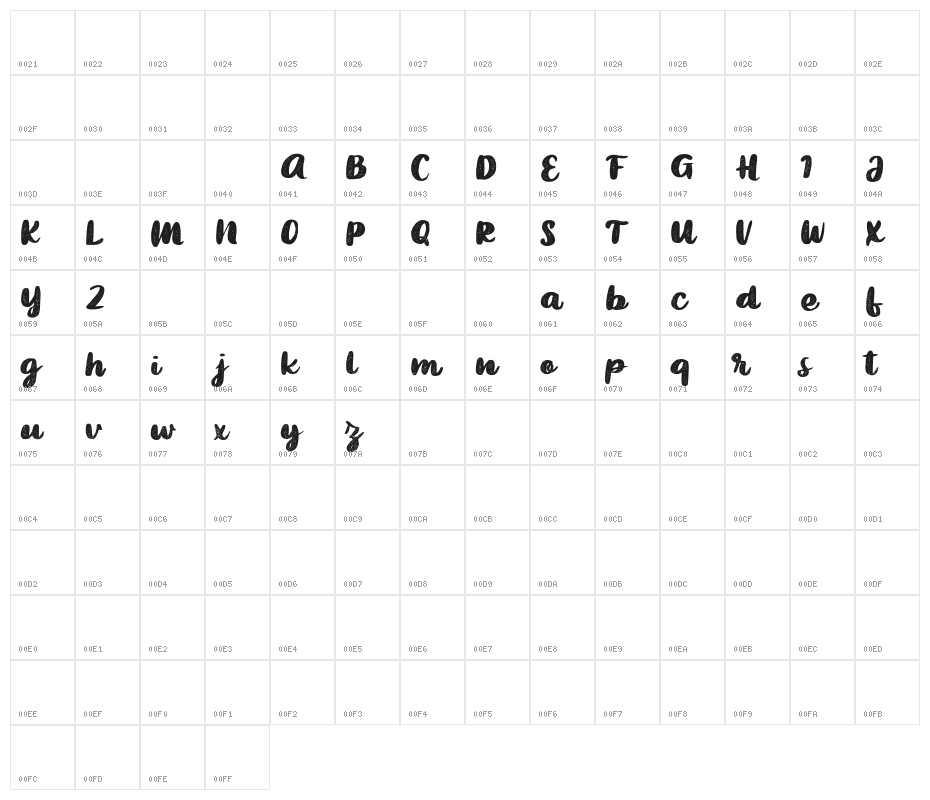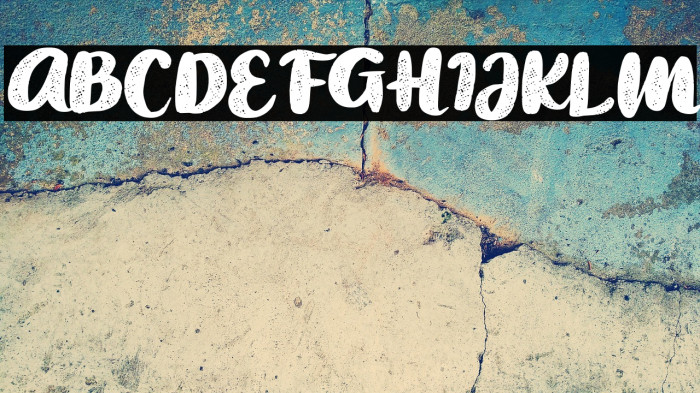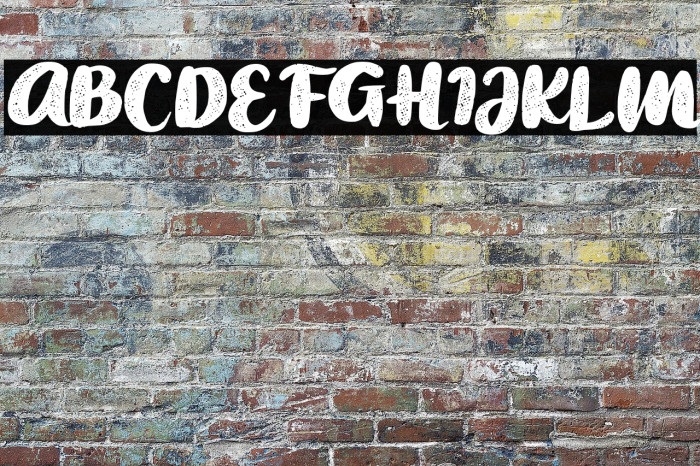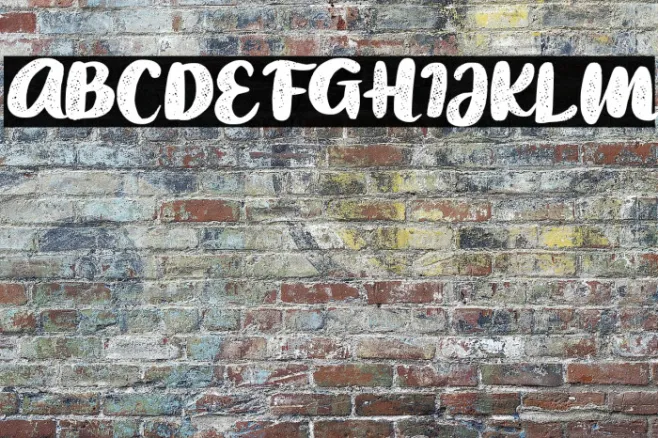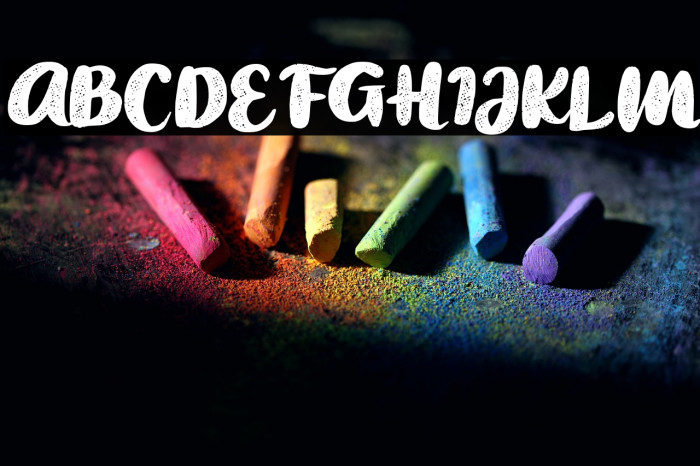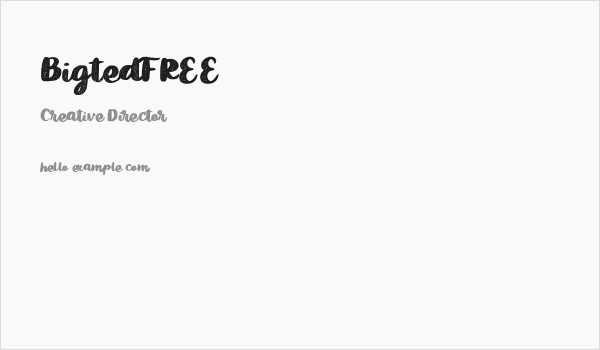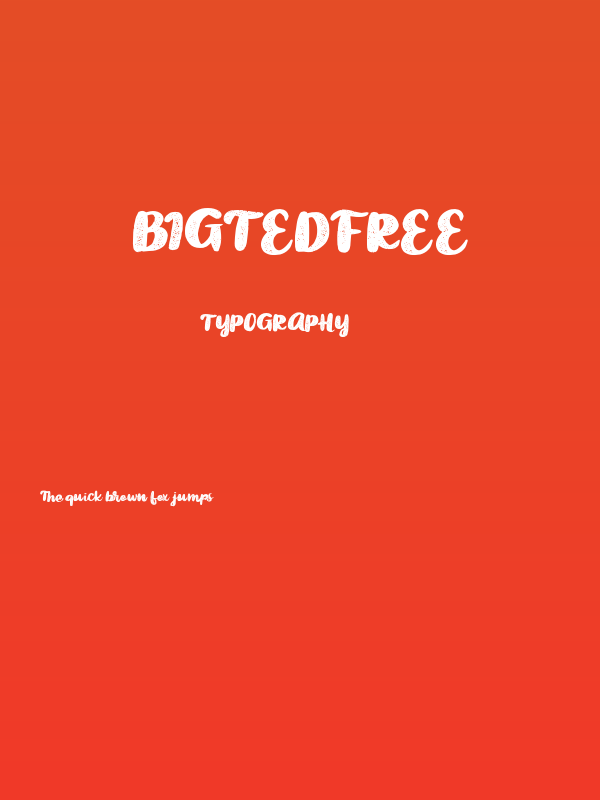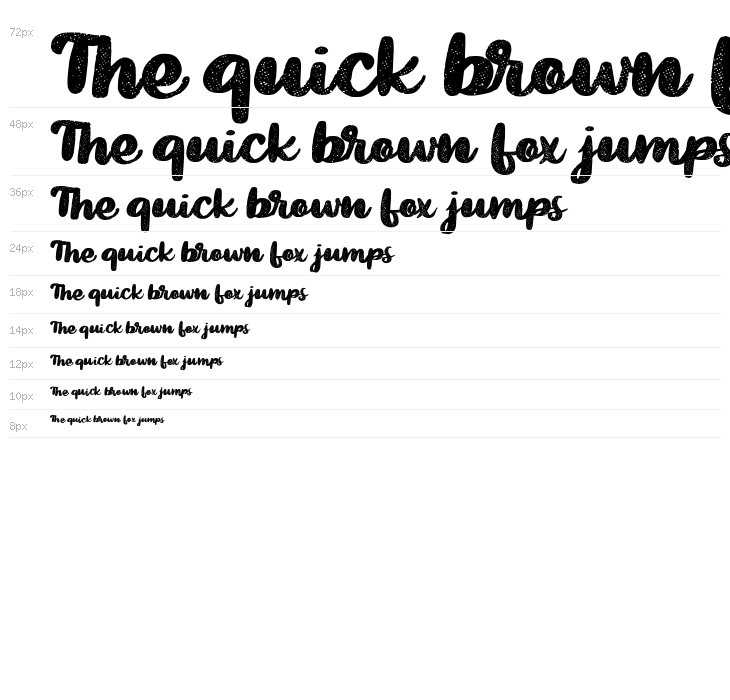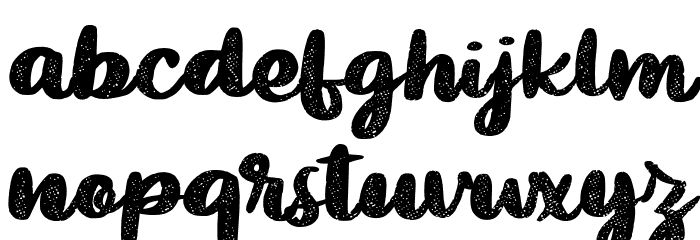
BigtedFREE Font
BigtedFREE Description
This font features a bold, playful script style with a textured appearance that gives it a handcrafted feel. The letters are connected, creating a flowing and dynamic look. The texture adds a unique character, making it stand out in any design. The uppercase and lowercase letters maintain a consistent style, with rounded edges and a slightly slanted orientation. This font is ideal for projects that require a personal touch or a creative flair, such as invitations, posters, or branding materials.
| Proposed Projects | Ideal for invitations, posters, branding, and creative projects requiring a personal touch. |